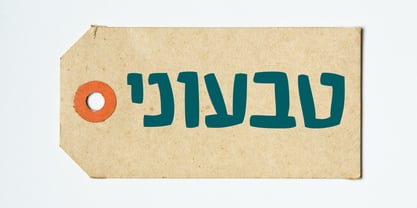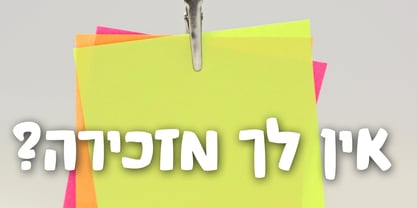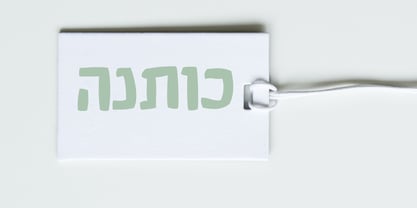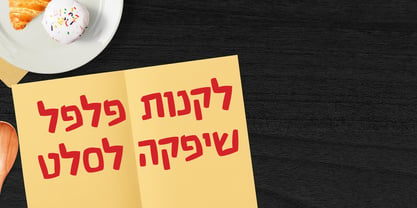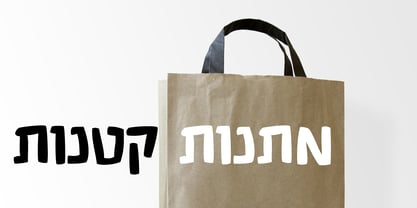
Soffona Sales MF
by Masterfont
The Soffona Sales MF Font Family was designed by Zvika Rosenberg and published by Masterfont. Soffona Sales MF contains 2 styles and family package options. More about this family
This font is a great choice when you want to effortlessly make your designs stand out with a remarkable clearly crafted handwriting. The active brush strokes, the rhythm, color and the unique flow makes it so personal for any advertising, poster or even a poem. Highly legible single stroked font to be used for titles, signage, captions or even a great pricelist. Updated and refined outlines as well as screen quality.